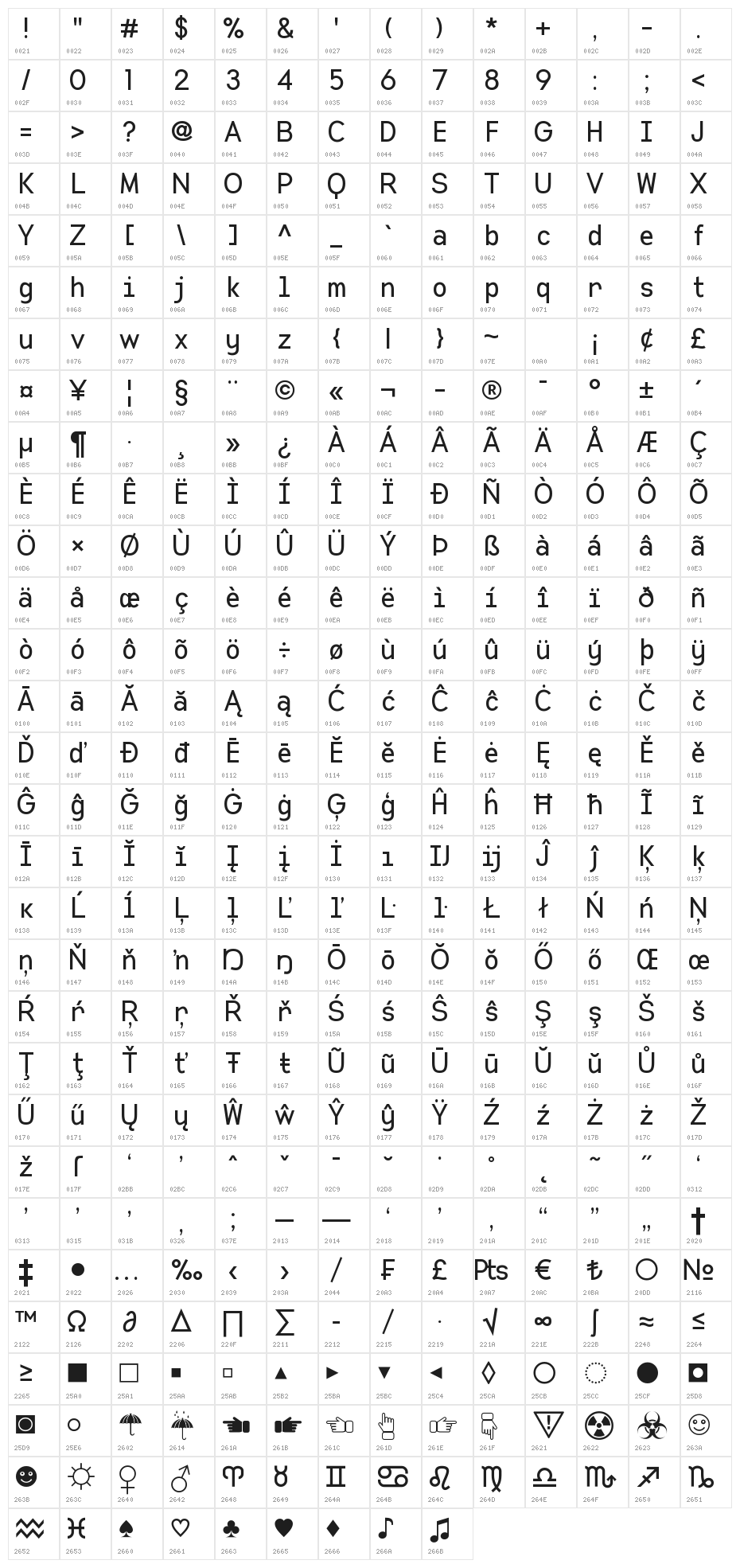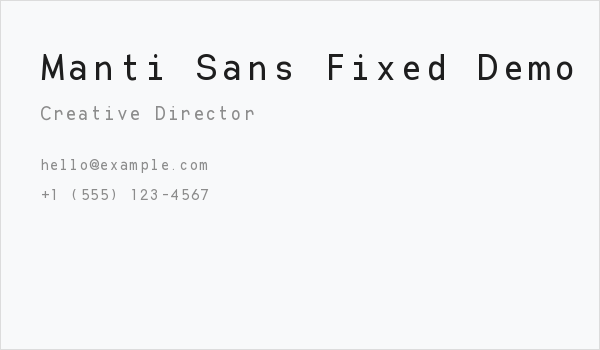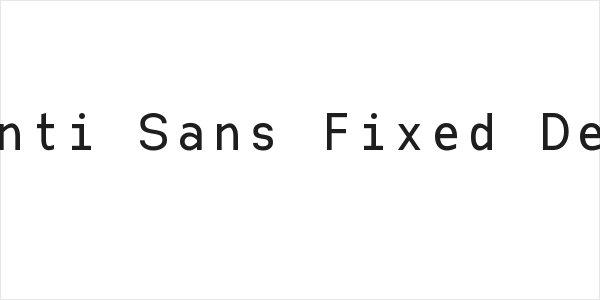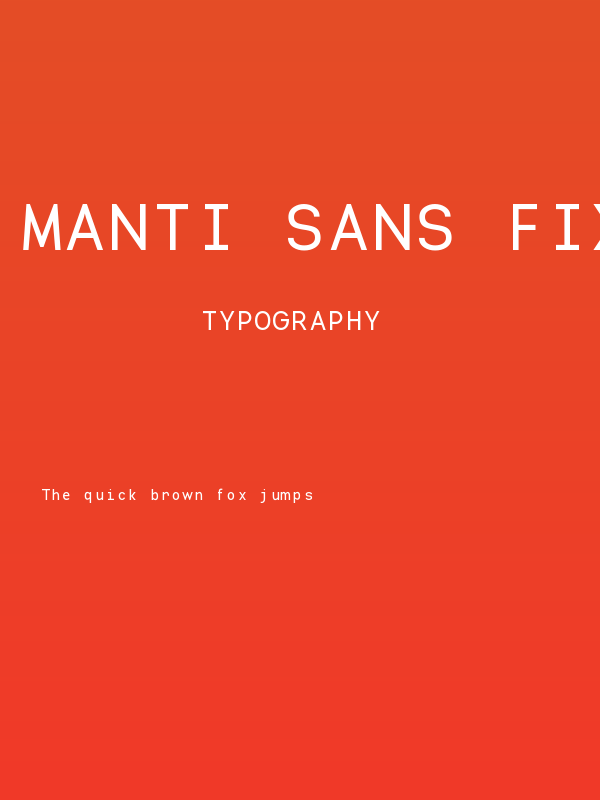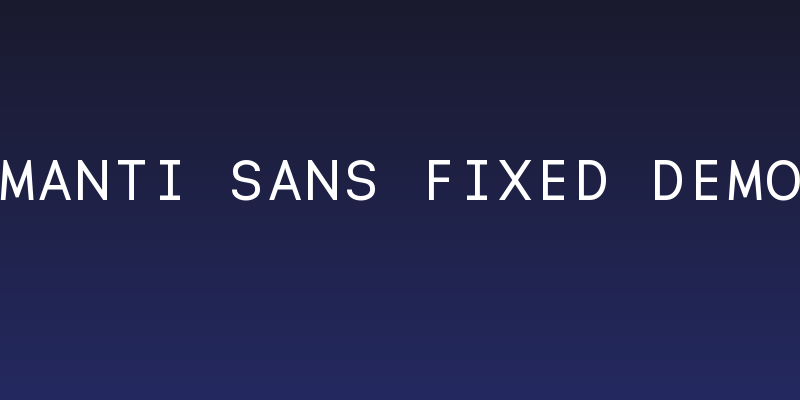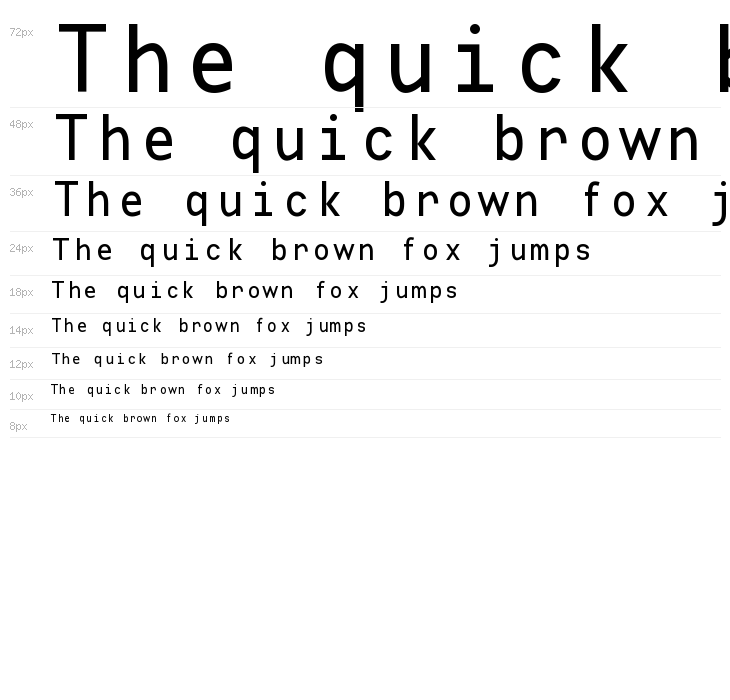
Manti Sans Fixed Demo Font
Manti Sans Fixed Demo Description
This typeface features a clean and modern sans-serif design, characterized by its uniform stroke width and geometric shapes. The uppercase letters are bold and straightforward, while the lowercase letters maintain a consistent style with rounded edges and clear legibility. The numerals are proportionate and align well with the overall aesthetic, ensuring readability. Special characters are designed with simplicity in mind, complementing the font's minimalist approach. This font is versatile, suitable for various applications where clarity and modernity are desired.
Proposed ProjectsIdeal for digital interfaces, corporate branding, signage, and editorial design.